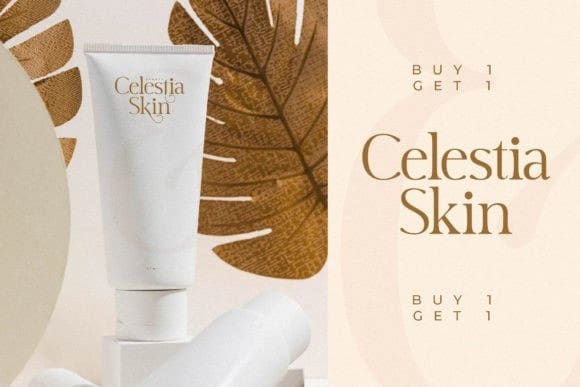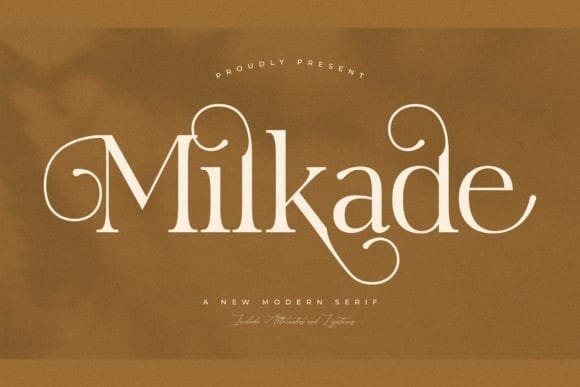
Milkade Font
Milkade Font, with its delicate lines and ornate serifs, it can convey a sense of tradition and authority that is highly appealing to many audiences. Whether used for body text or headlines, Milkade is a versatile choice that can be used in a variety of contexts to create a sense of refinement and sophistication.